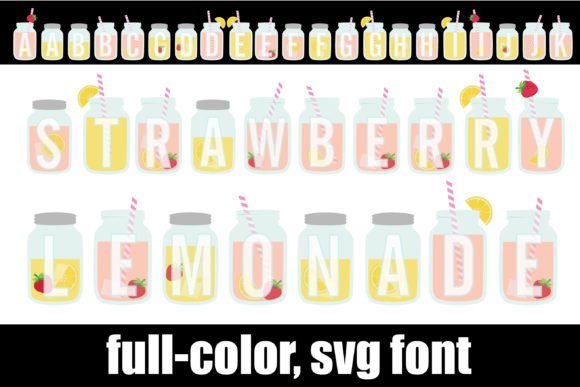
Dive into the flavorful world of Strawberry Lemonade Font, where colors dance on your designs, bringing life and vibrancy to your creative endeavors. This extraordinary full-color SVG font is a masterpiece crafted by Illustration Ink, capturing the joyous essence of summer in every letter.
Picture a jar filled with the refreshing goodness of strawberry lemonade, its vibrant hues bursting with juicy delight. Now, imagine transforming that tantalizing beverage into a font, one that carries the same energy and charm into your digital creations. Strawberry Lemonade Font does just that, offering a palette of colors that will ignite your imagination and leave your audience craving more.
With its playful sans-serif lettering, Strawberry Lemonade Font exudes a casual yet sophisticated vibe, making it perfect for a wide range of design projects. Whether you're creating eye-catching social media posts, designing stunning invitations, or crafting unique logos, this font will add a touch of sweetness and personality that's sure to leave a lasting impression.
Unleash your creativity and let Strawberry Lemonade Font take your designs to new heights. Its full-color capabilities allow you to experiment with endless color combinations, creating captivating visuals that pop off the screen. Plus, its vector-based nature ensures that your designs remain crisp and sharp, regardless of the size or format you choose.